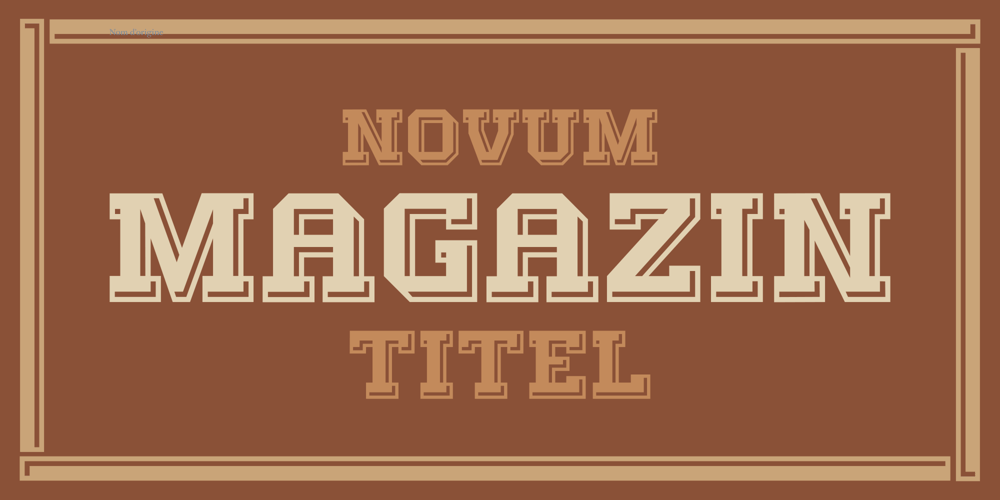
Magazin ST
Magazin ST font
Magazin ST Font Family was designed by Luis Siquot and published by siquot’types. Magazin ST contains 1 styles and family package options. Magazin ST is powerful but delicate. What fascinated me seeing, a couple of letters, in Bob Roy Kelly’s book (American Wood Type:1828-1900) were the little squares in the corners that represent a glow from lighting coming from below and from the right. Such ambiguity excited me and I thought that today with digital resources it wouldn’t take long to do it.Seeing it working is excellent. Look In the posters what it is for and the effects it produces, including the sensation of relief.- L.S.